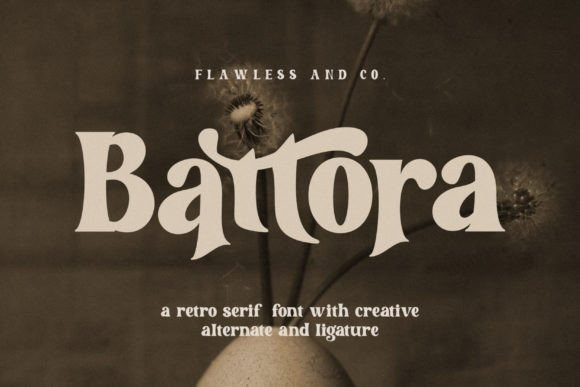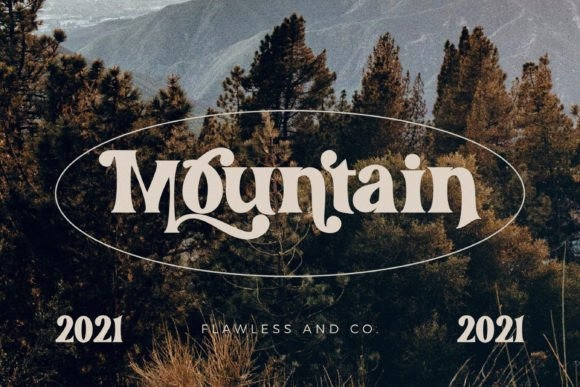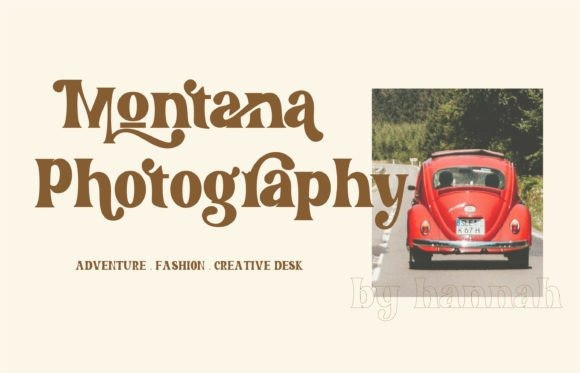
Battora Font
Battora is a stylish and elegant display font. Sophisticated and fashionable, this font is perfect for a wide range of design ideas. Add it confidently to your projects and you will be amazed by the outcome generated!